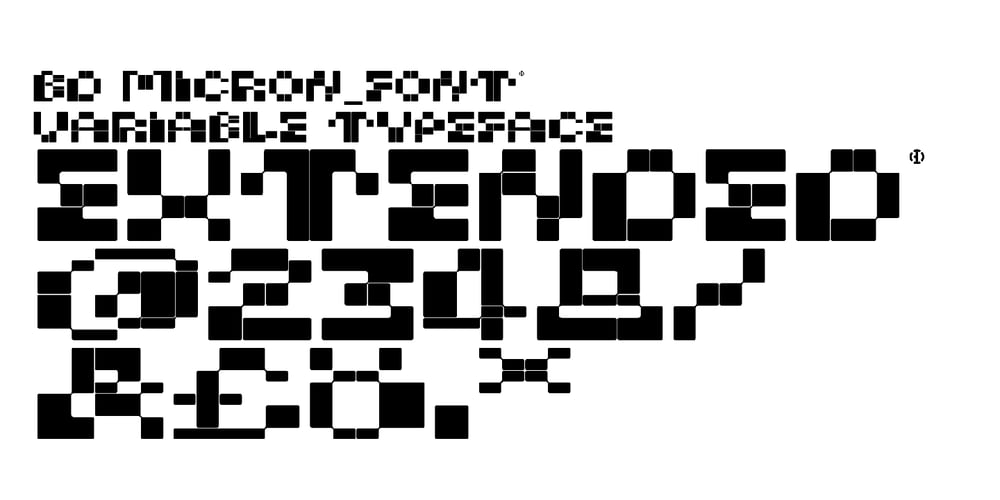
BD Micron Font
BD Micron Font Font Family was designed by Lorenz (Lopetz) Gianfreda and published by Typedifferent. BD Micron Font contains 6 styles and family package options. The BD Micron Font is the first typedifferent variable font. It is a very technical looking typeface great for use in sci-fi, science and electronic music related projects.The BD Micron Font alphabet designed together with H1reber was initially created as the display typeface for the communication and visual identity of the TechnoCulture 2 festival in Fribourg, Switzerland summer 2019. The technologic yet playful looking font shall break boundaries between technology, science, fiction and art. Creating characters, hence little robots out of the shapes found in the BD Micron Font glyphs and the variable font technology helped breathing live into the BD Micron Robots which is also availabe here at MyFonts